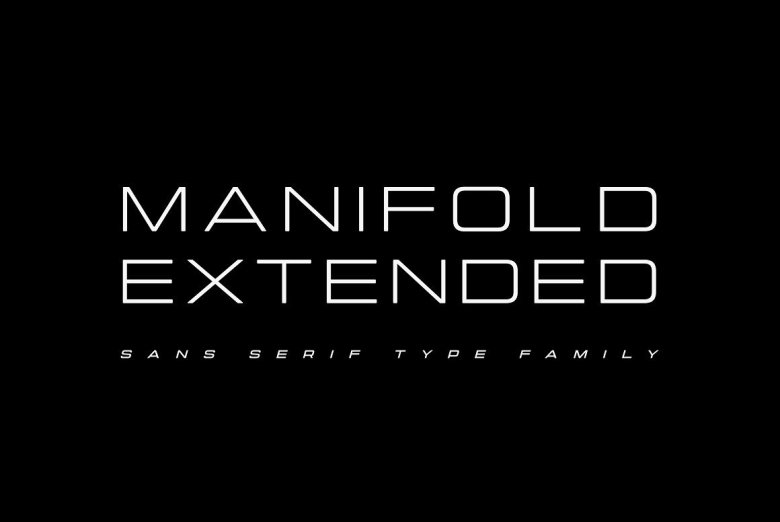
Manifold Extended Font
Commanding, luxurious, and sharp. Manifold Extended Sans Serif Font is a wide variation on the classic Manifold font family. Its clean, elongated shapes are both technical and elegant. An excellent typeface for titles, logotypes, user interfaces, and short texts.
Manifold Extended Sans Serif Font Family